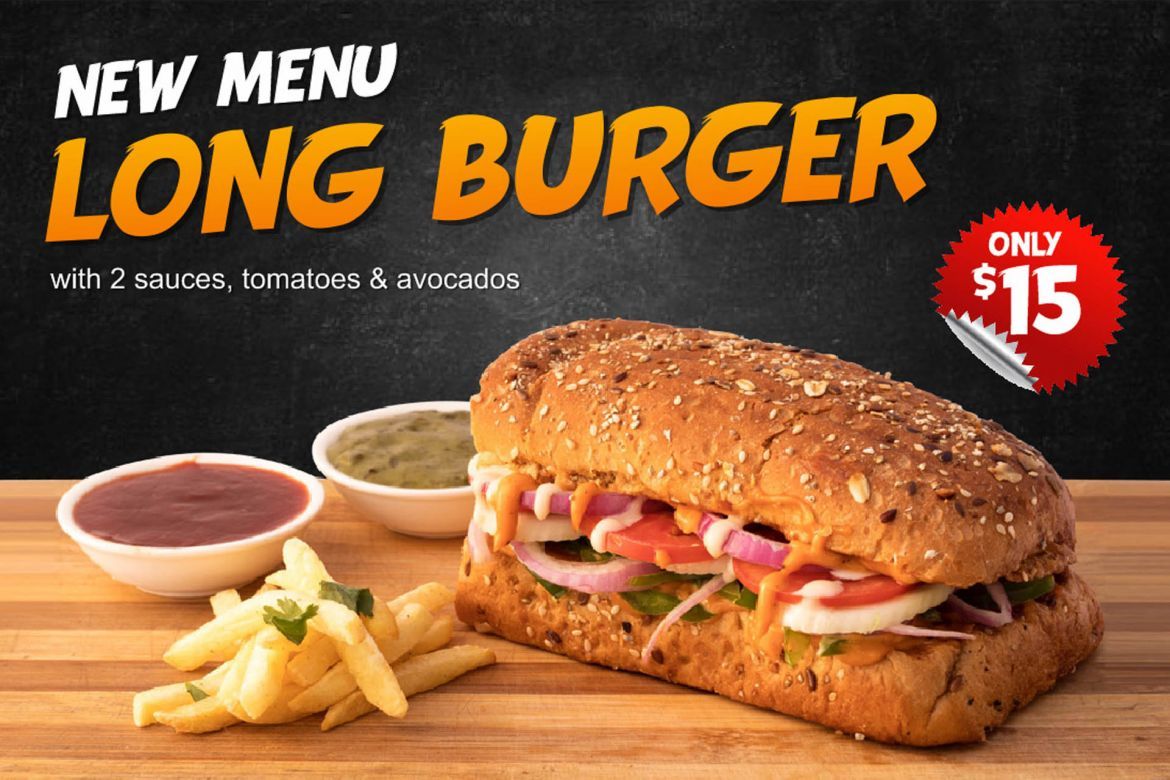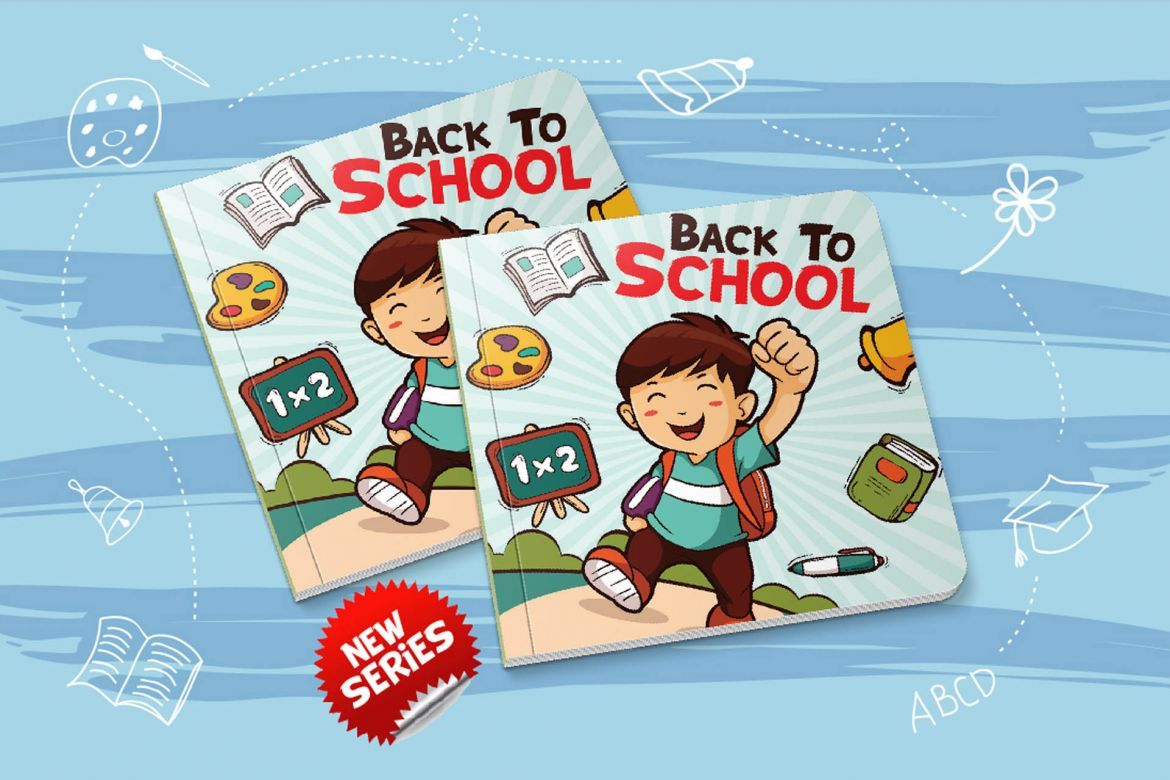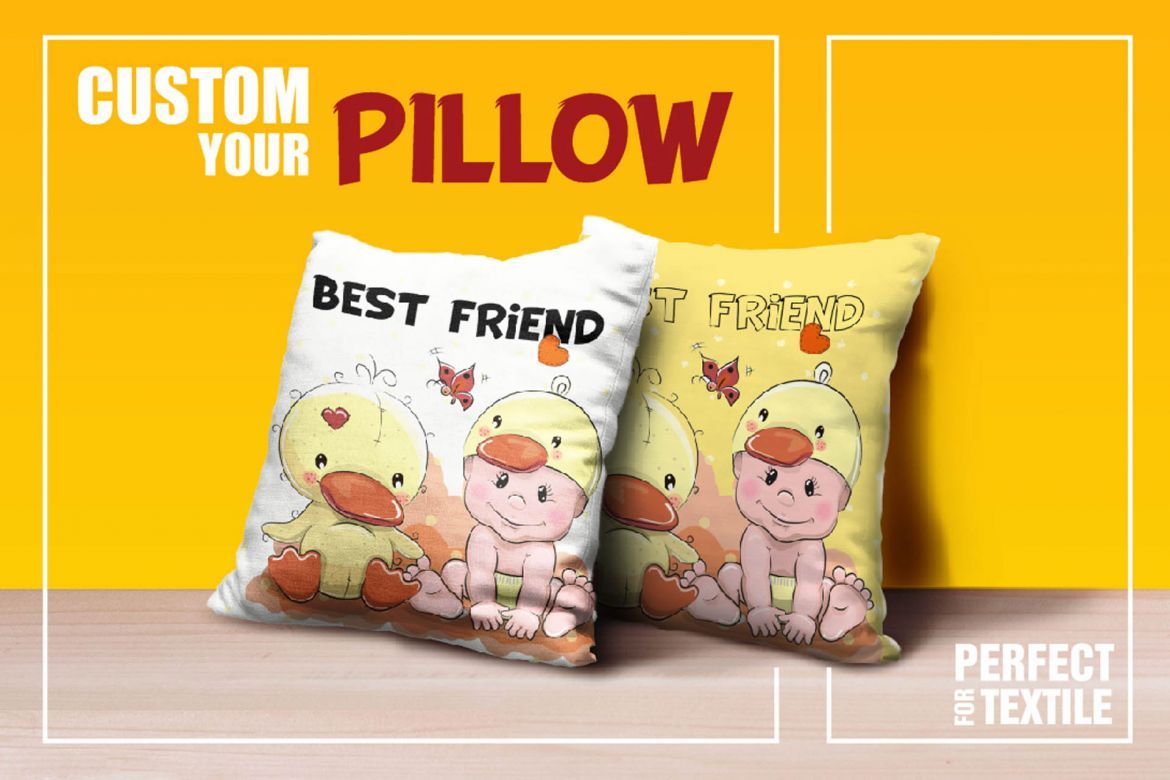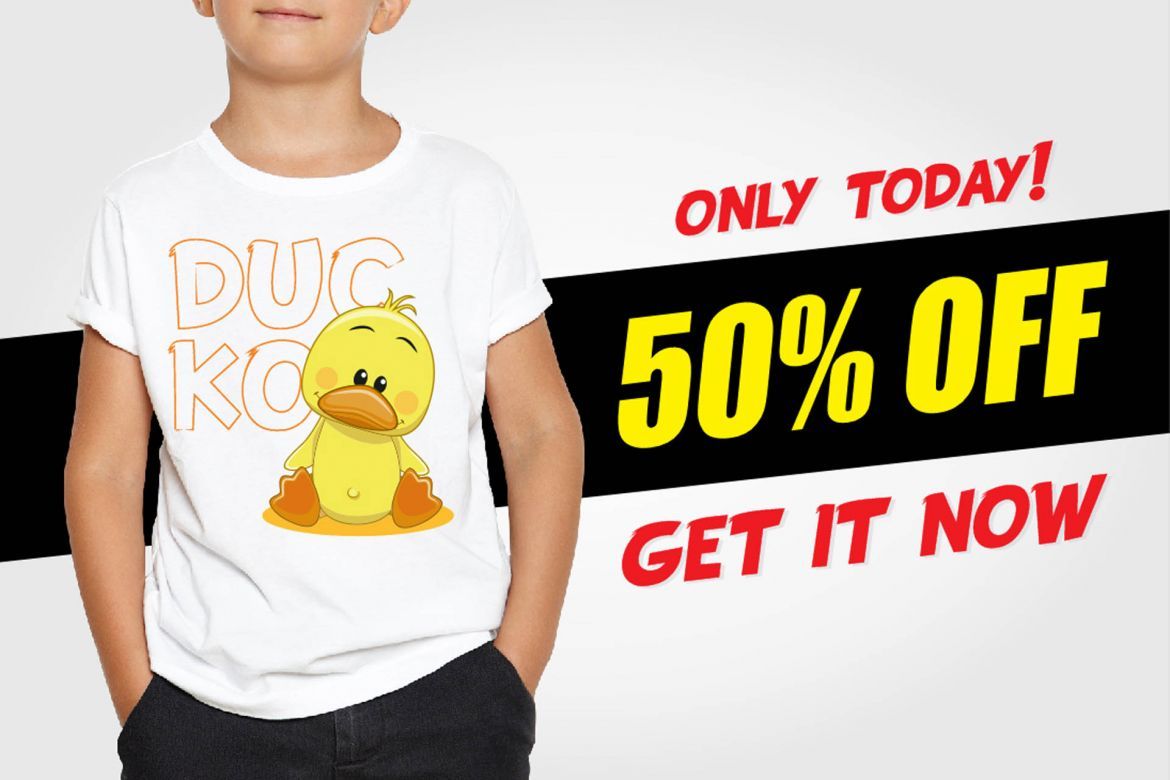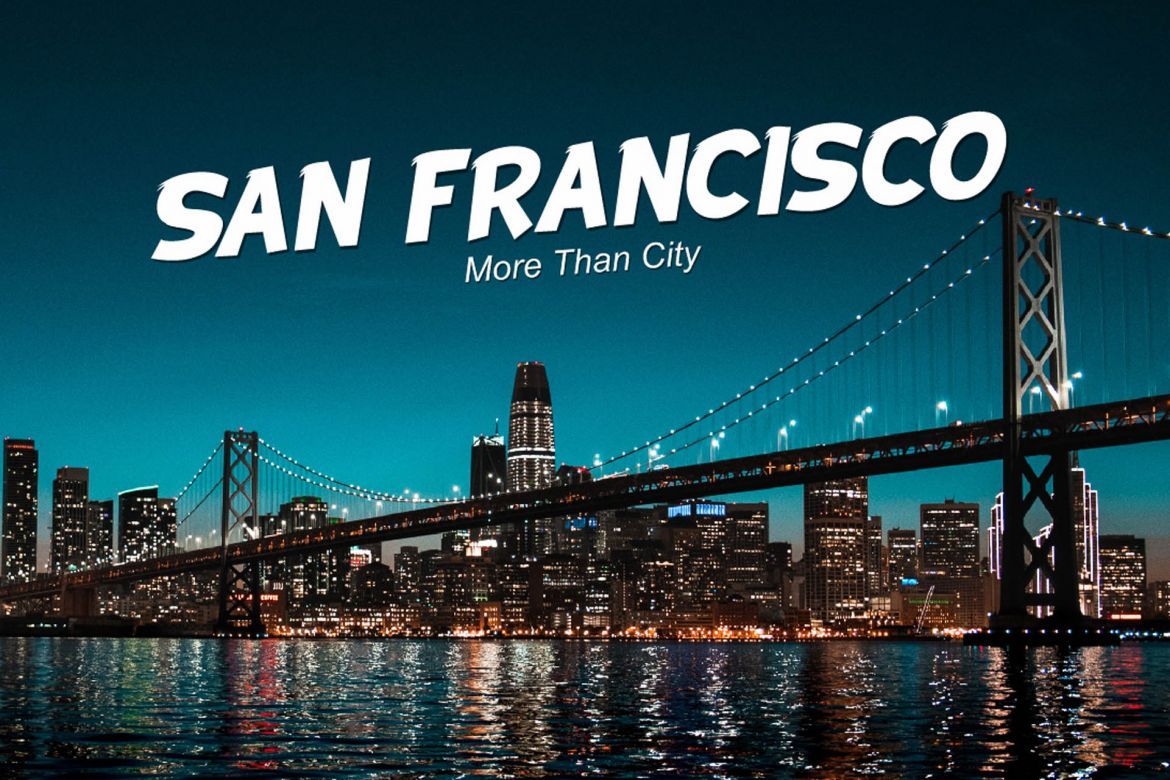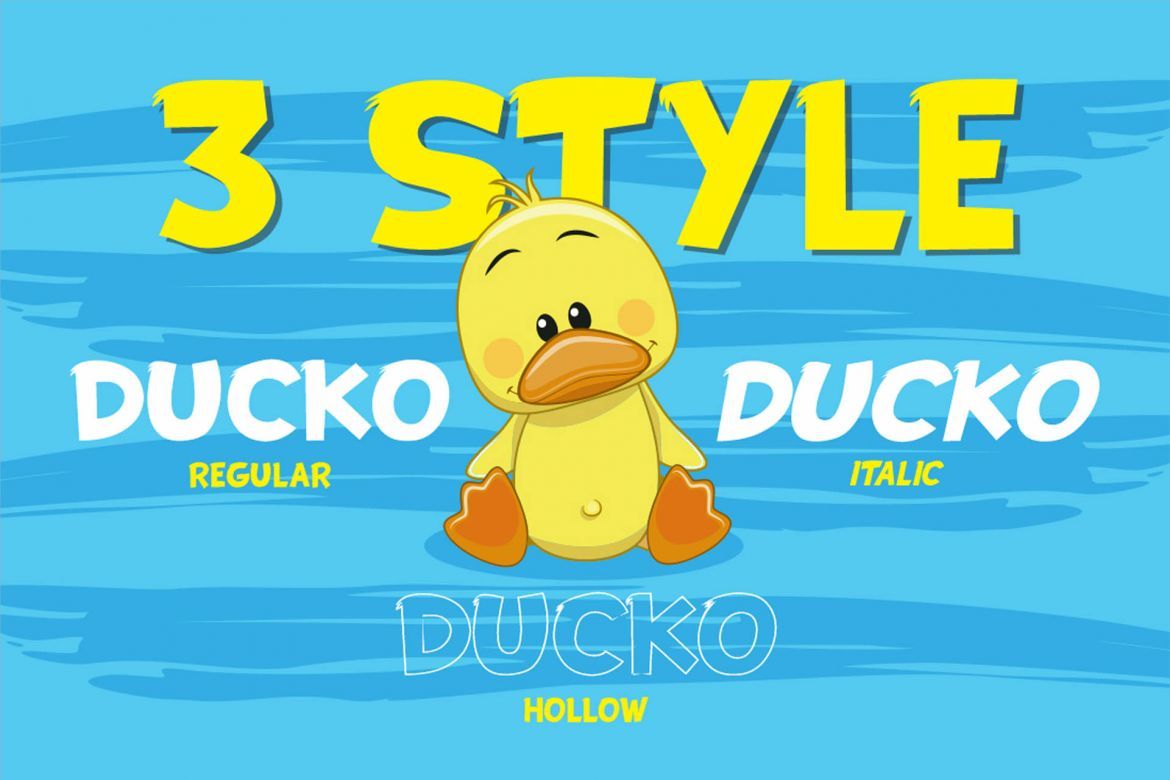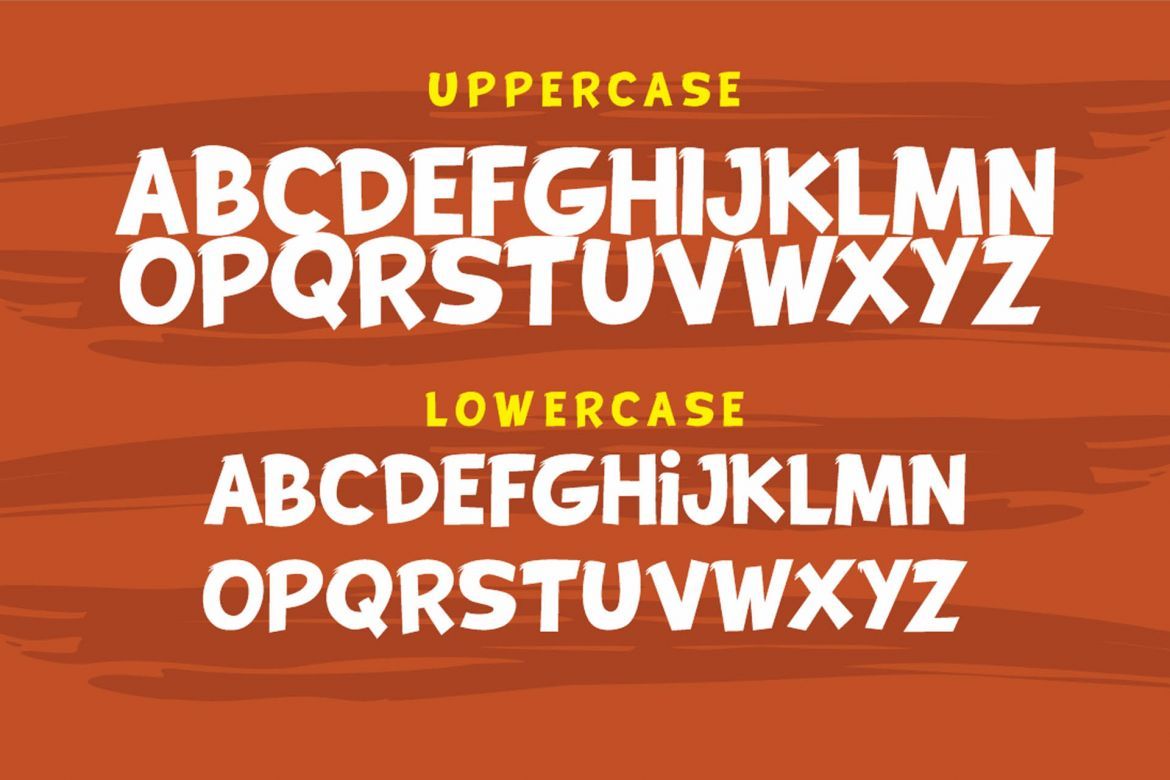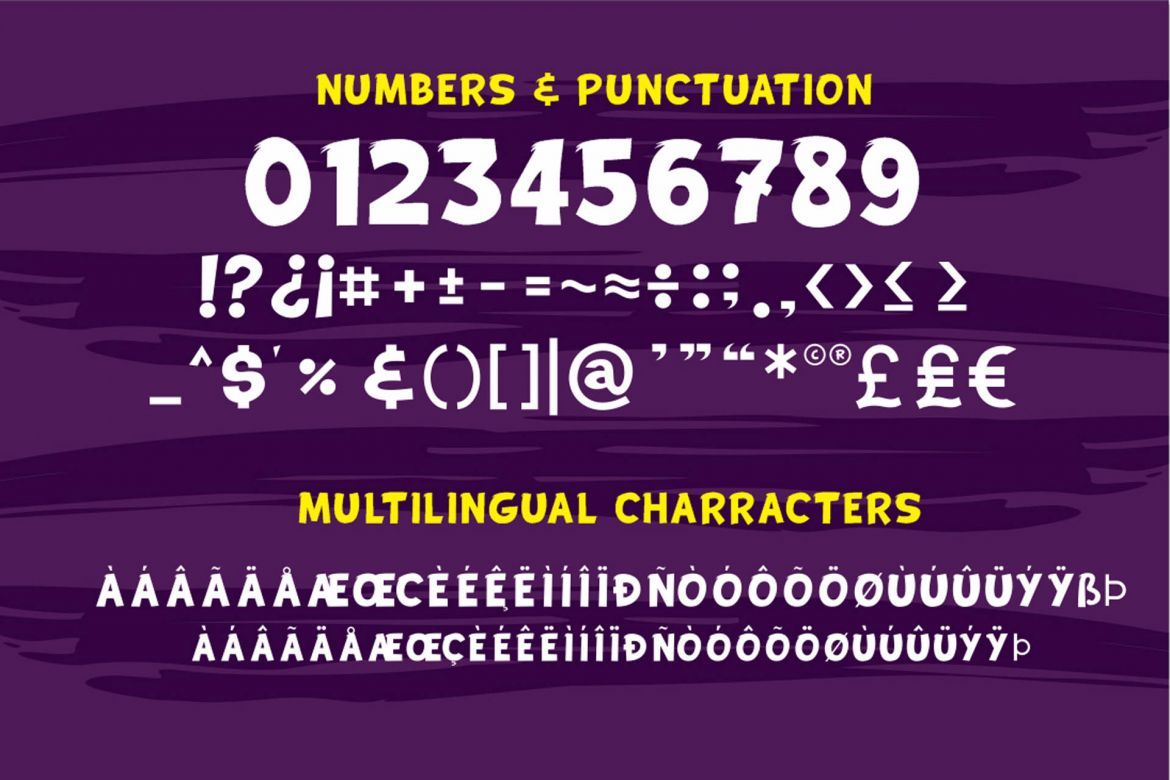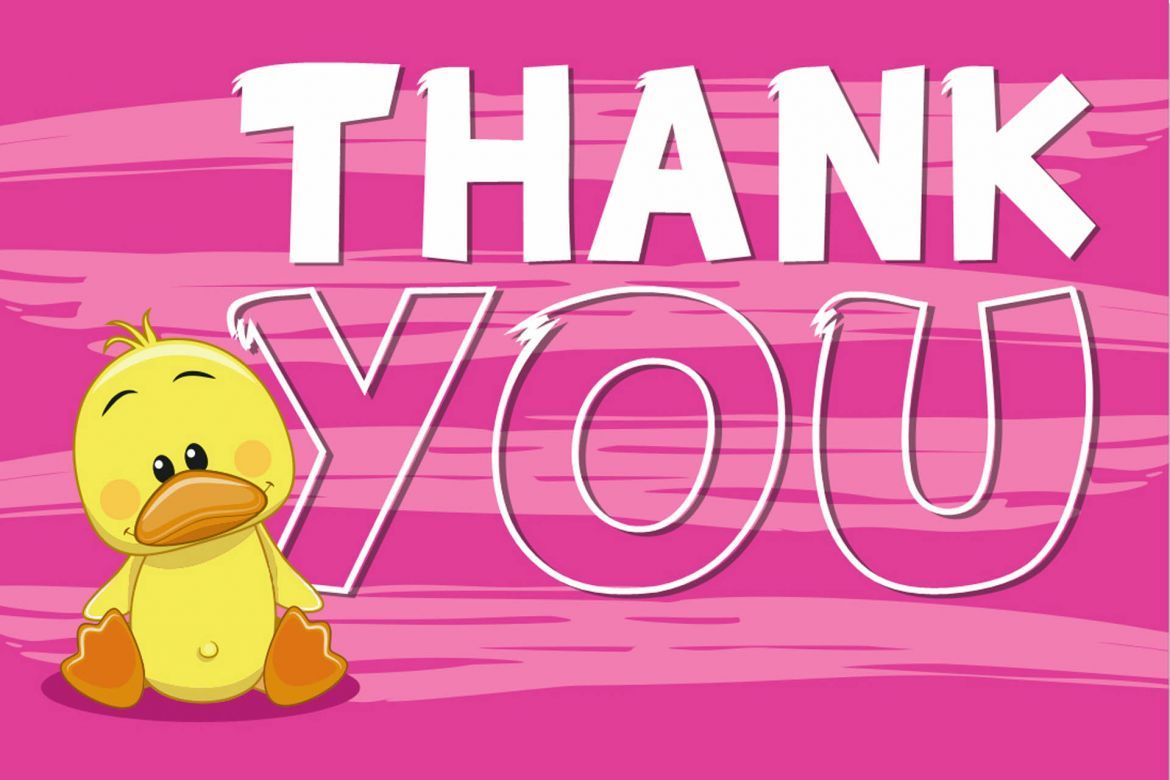
DUCKO Display Font
As a funny and cute display font, Ducko is the perfect font for adding a cute and playful touch to your designs.
• 3 style fonts
• kerning